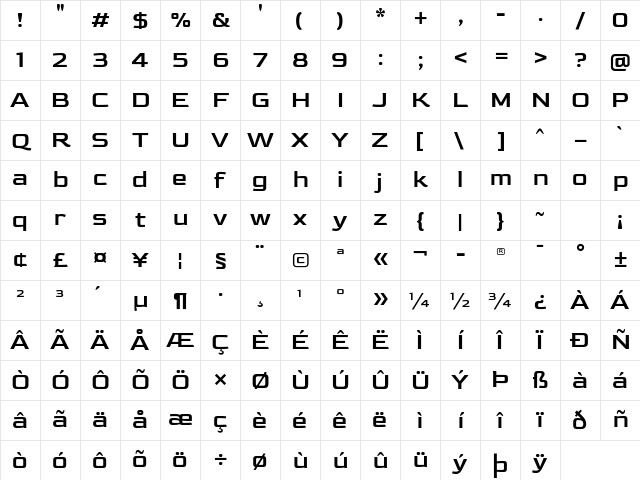
Gold Regular
Designer: jaiki
Design Context for Gold
Gold is a composed and adaptable typeface that performs quietly and consistently across a wide range of design contexts.